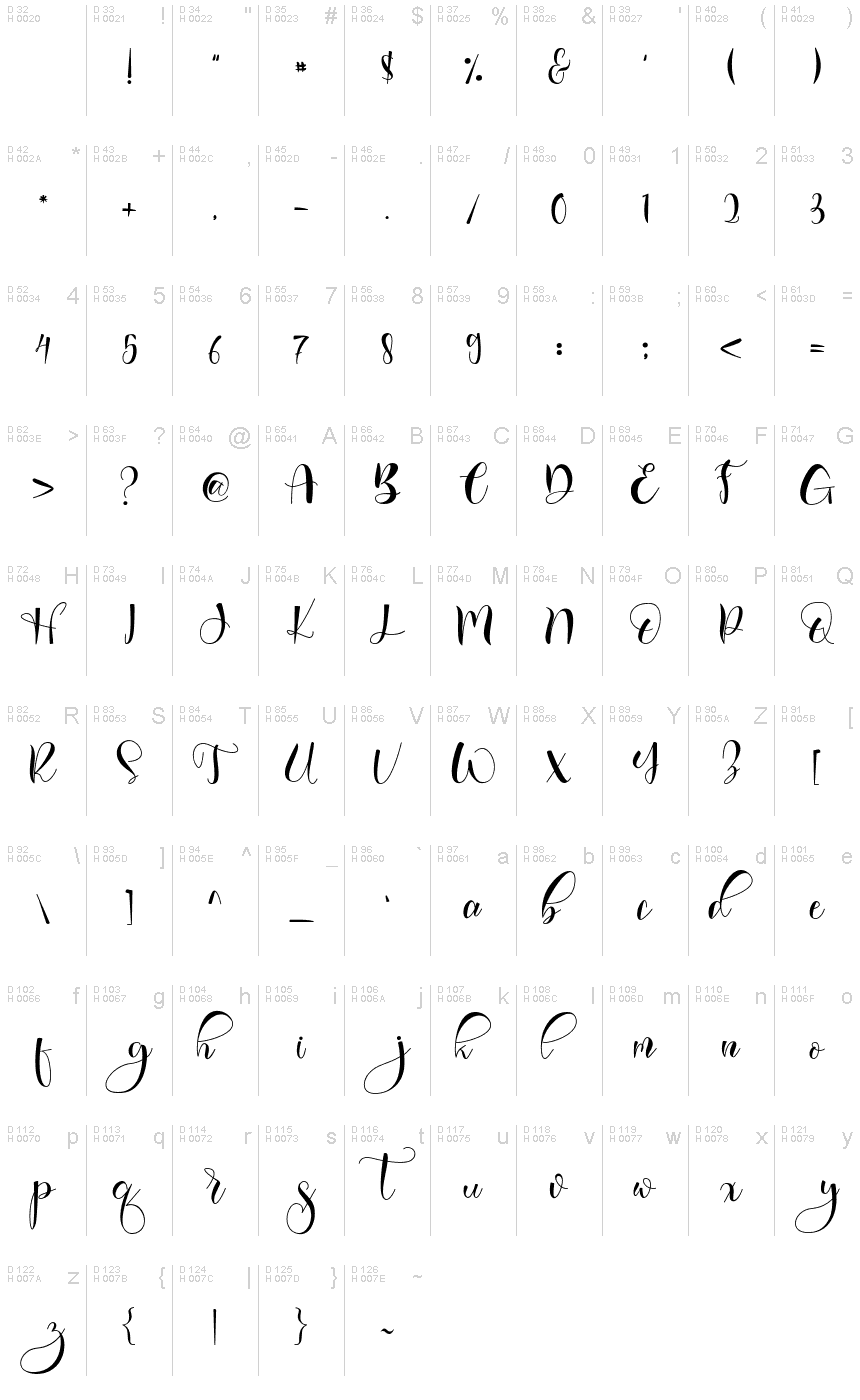
Vanesha
Vanesha is a stunning calligraphic font designed by Infontree Store that adds a touch of elegance to any project. With its various weights, this versatile font is perfect for creating beautiful wedding invitations, greeting cards, and branding materials. Its flowing script style lends itself well to projects that require a personal touch, such as handwritten notes or quotes. Vanesha can also be used for fashion and beauty-related designs or any project where you want to convey sophistication and refinement. This font will surely make your projects stand out from the crowd with its unique beauty and style.